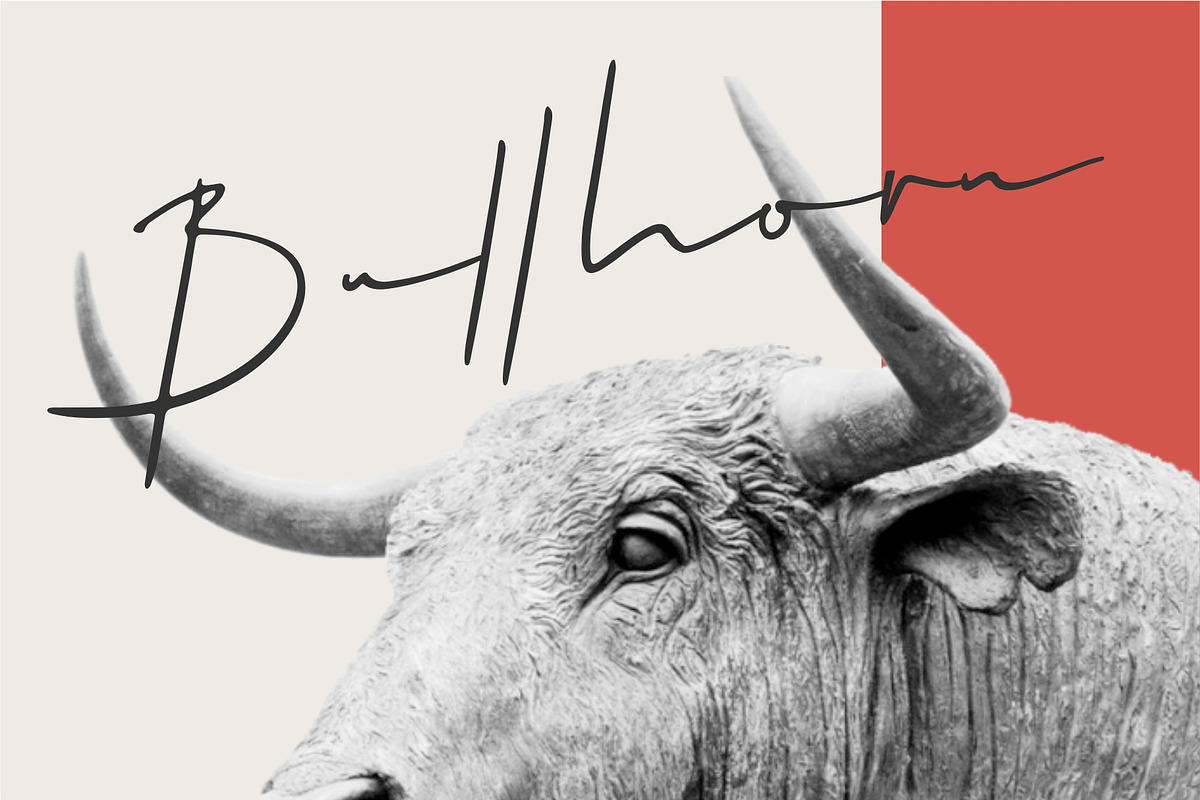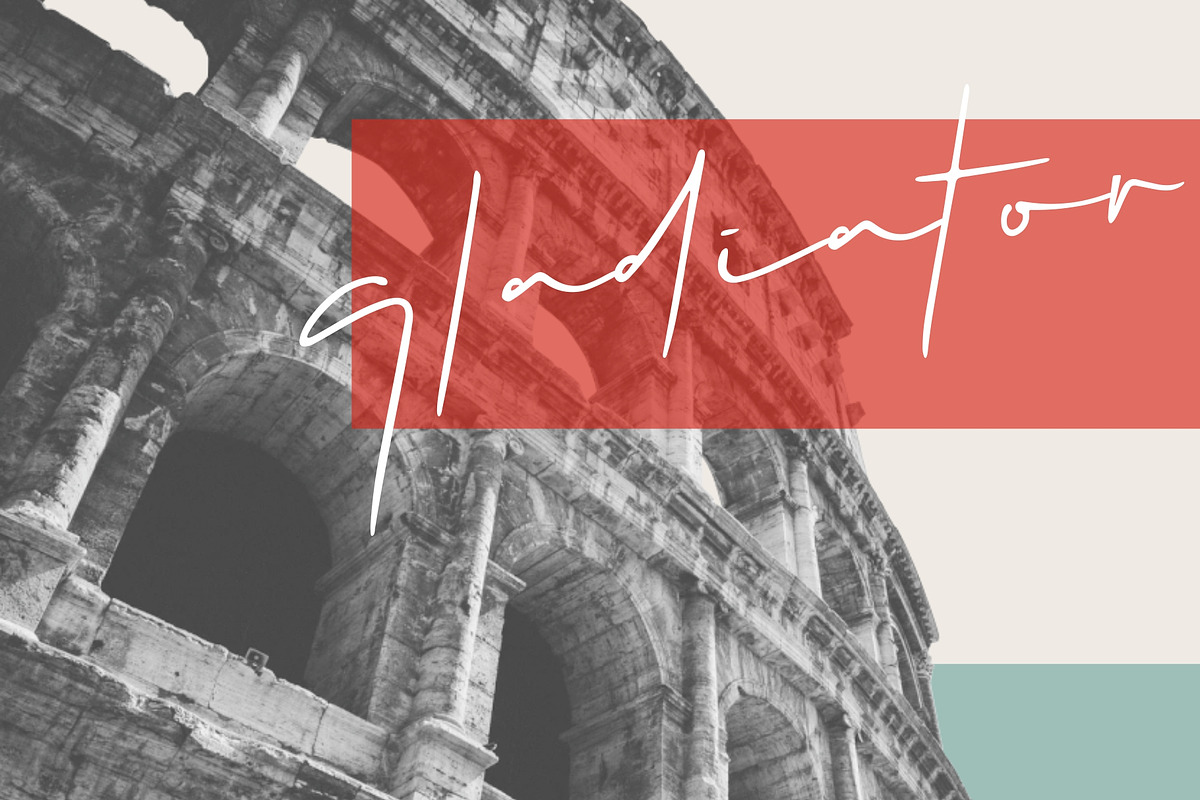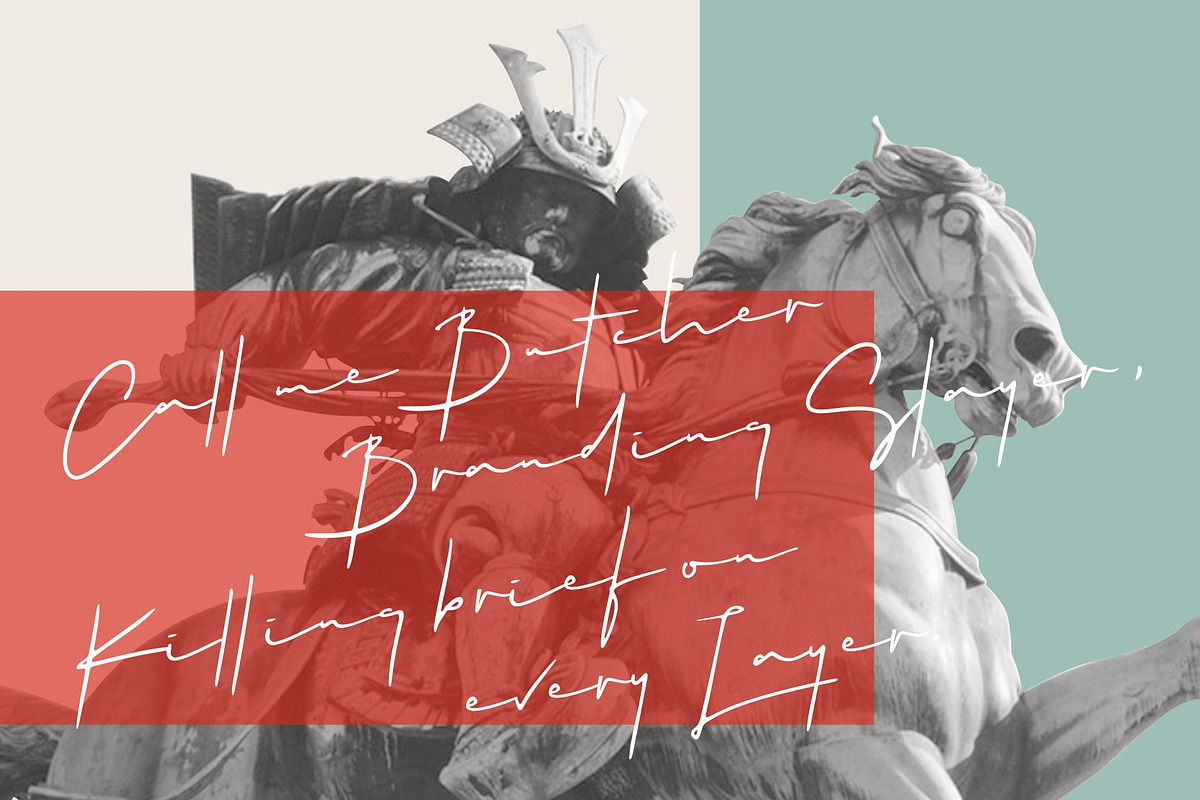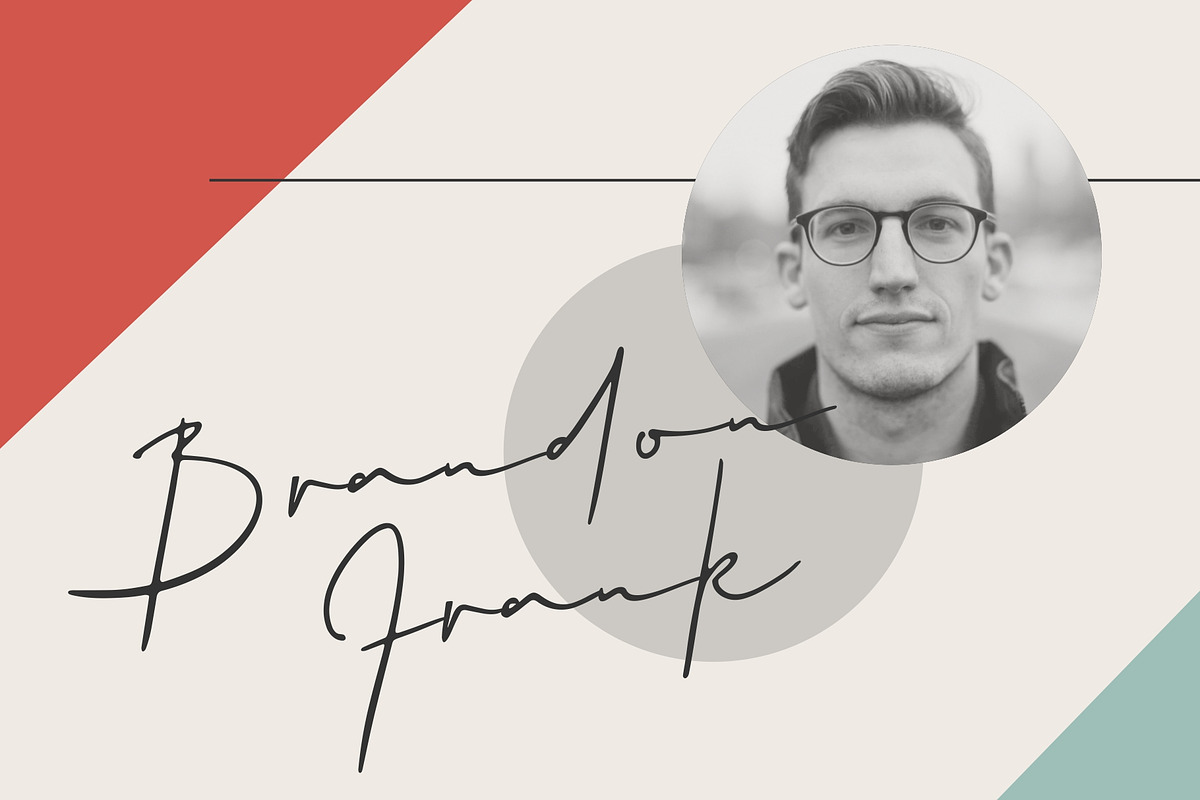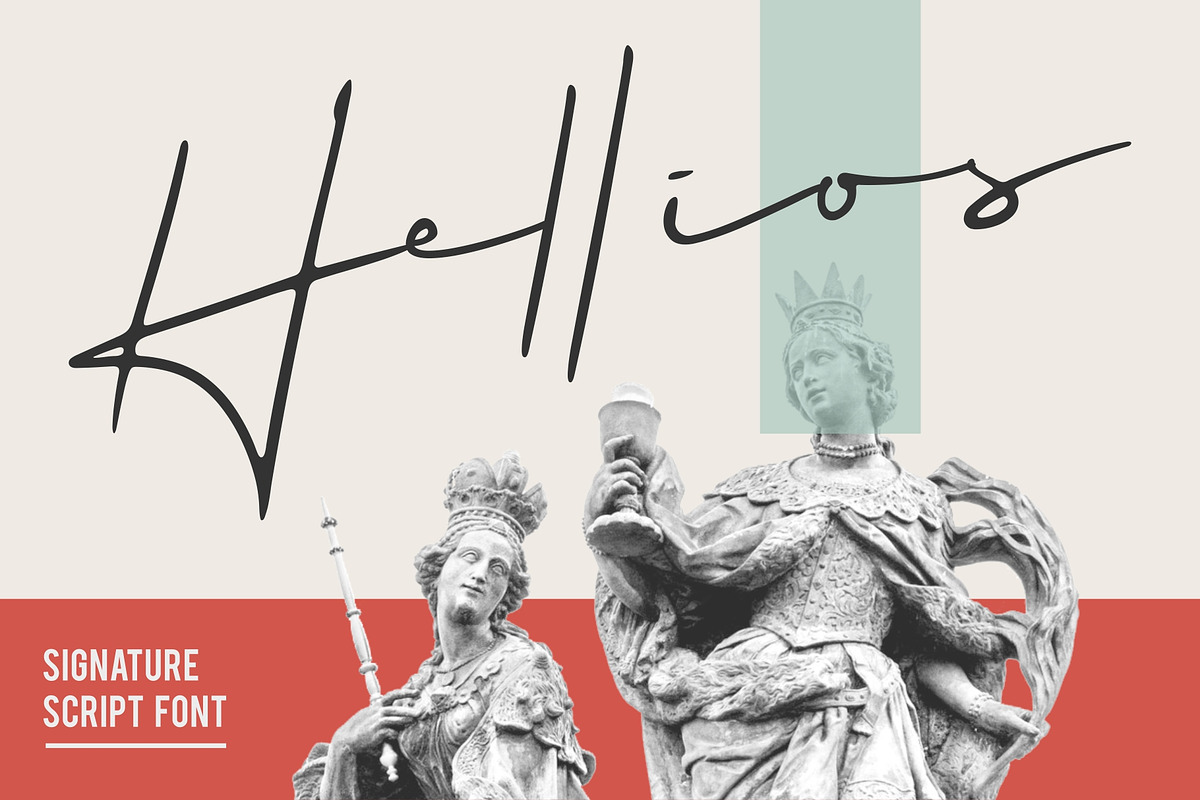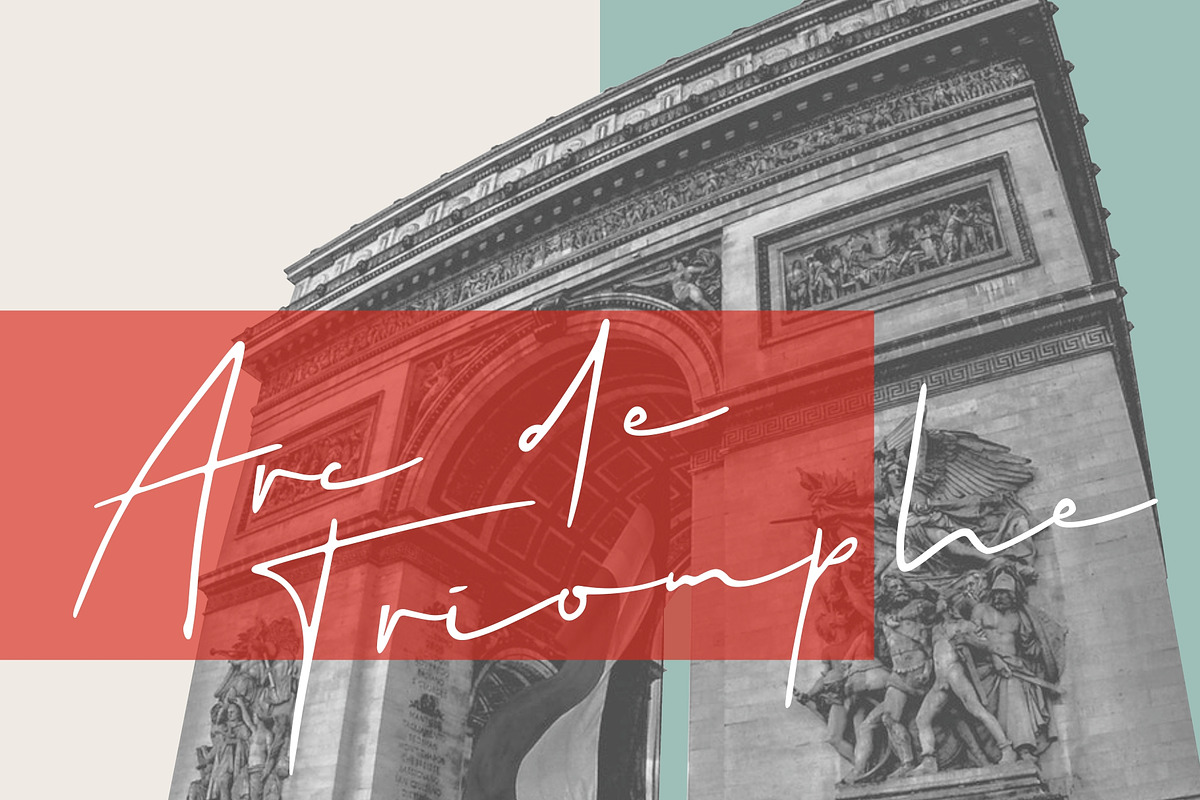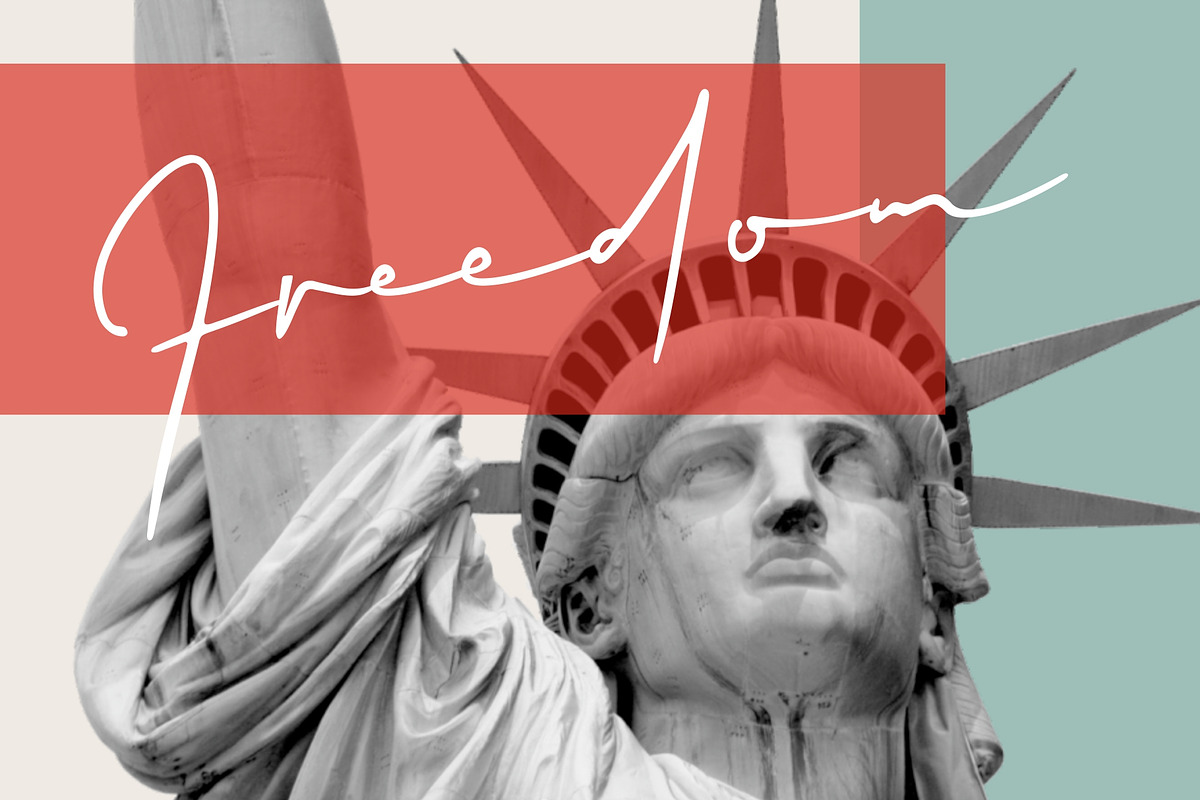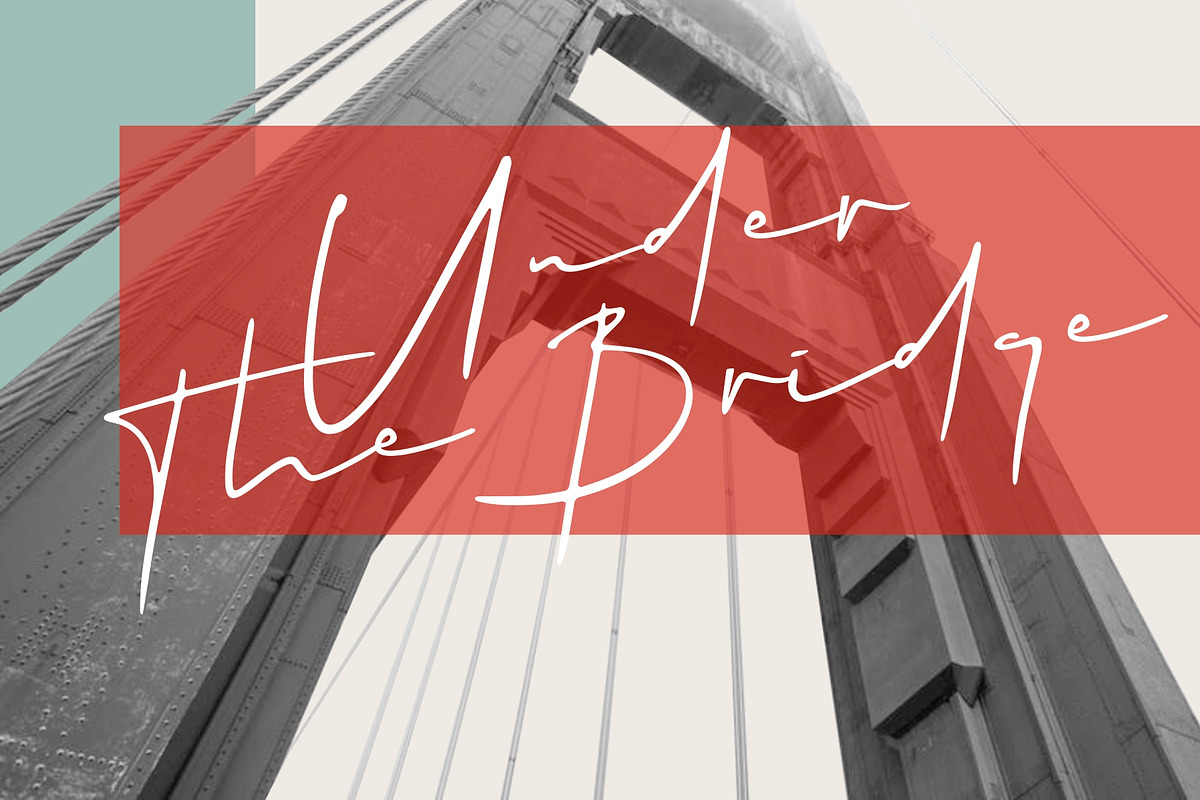
Hellios Signature Font
Hellios Signature Font is a Handwritten Script Font With a natural effect of an ink. It has multipurpose value such as digital signature, Branding, Email signature, Quote, and much more.
25 Ligatures (see preview)
Hellios Signature Font by VSTRD TYPEWORKS fits naturally into Branding, posters, packaging, typography.